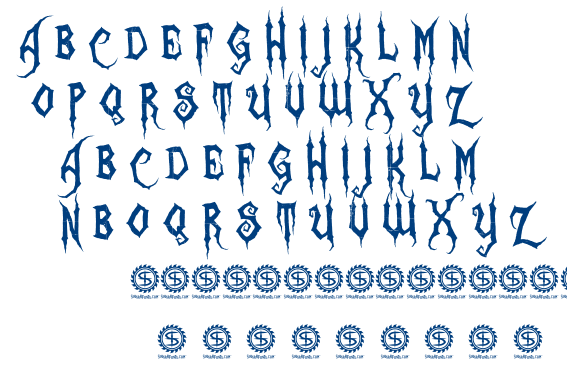
Tiny Small Medium Large Zombie Holocaust font Sinister Visions Website Zombie_Holocaust.ttf Download 1680 downloads Freeware Category: Gothic » Various Zombie Holocaust font. Created 2005, hand-lettered while watching George Romero’s “Day of the Dead”. Character Map specimen sheet